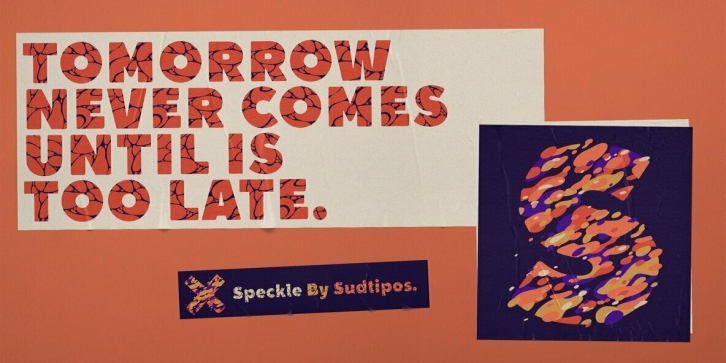
Speckle is inspired by the intersection of two seemingly different things, such as illustration and typography, or oil and water. Much like mixing oil with water and watching the liquids interact and collide to create interesting and attractive shapes, Speckle offers the opportunity for play, and has the capacity to generate texts with personality and authenticity. The result is typography full of life, movement and originality.​​​​​​​
Speckle comes in 4 files with a pre-defined color palette (3 different color fonts and 1 normal black and white version). You can always change the colors converting the text to outlines.